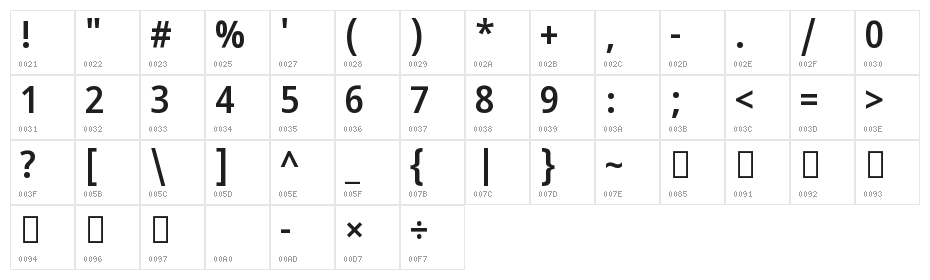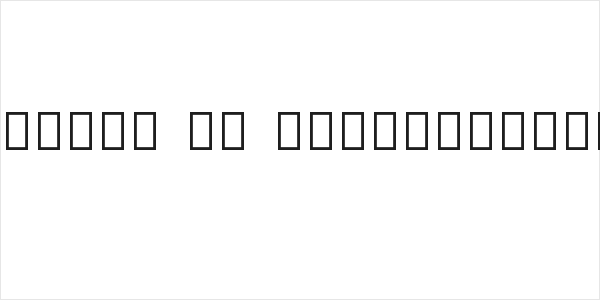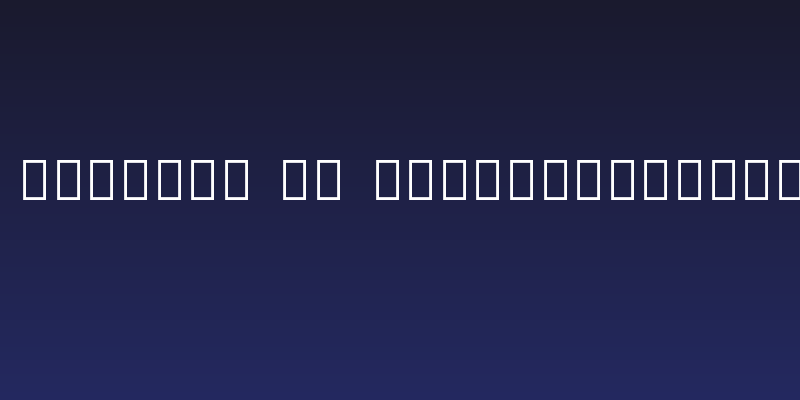
Noto Sans Sinhala UI SemiCondensed SemiBold Font
Noto Sans Sinhala UI SemiCondensed SemiBold Description
This font features a clean and modern design with semi-condensed letterforms that provide a sleek and professional appearance. The characters are well-balanced, offering a uniform look that enhances readability. The numerals and special characters are clearly defined, making them suitable for various applications. The overall style is versatile, fitting well in both digital and print media. Its semi-bold weight adds emphasis without overwhelming the design, making it ideal for headlines and subheadings.
| Use Case | Headlines, User Interfaces, Branding |
| Proposed Projects | Ideal for user interfaces, websites, corporate branding, and editorial design. |